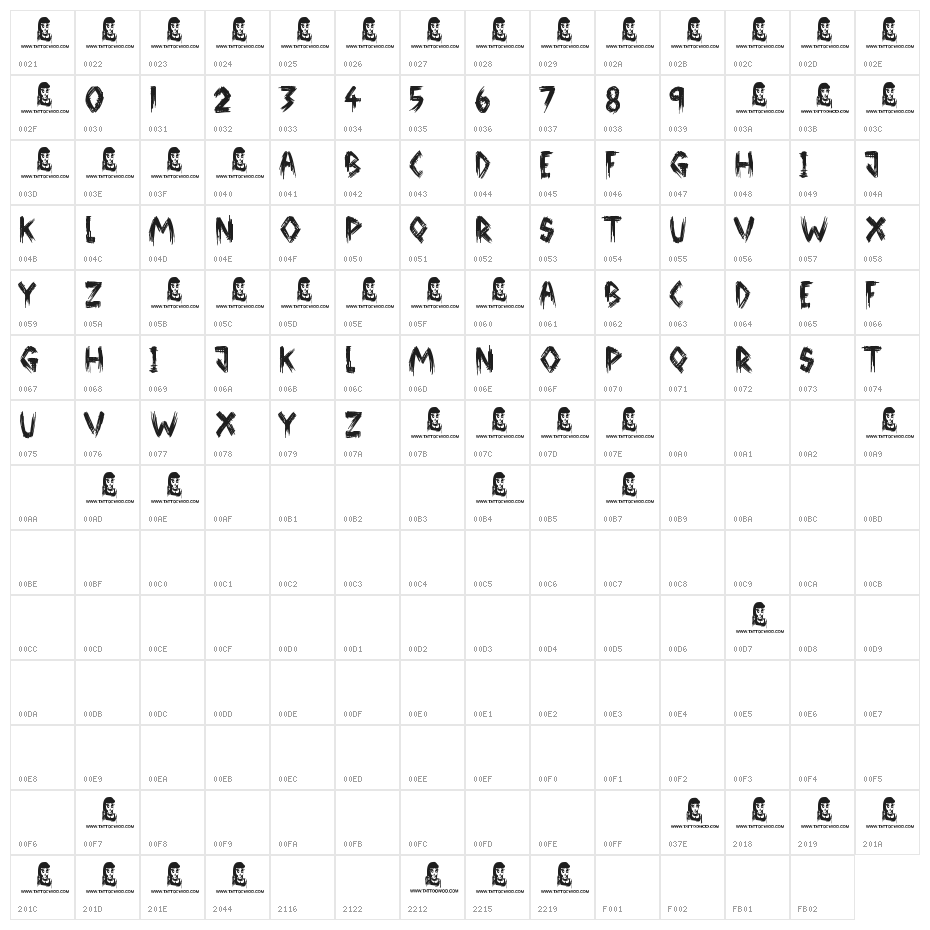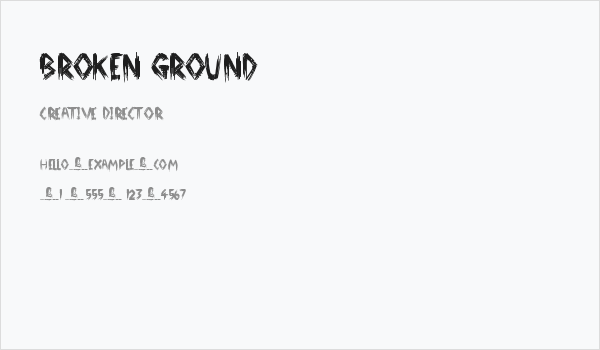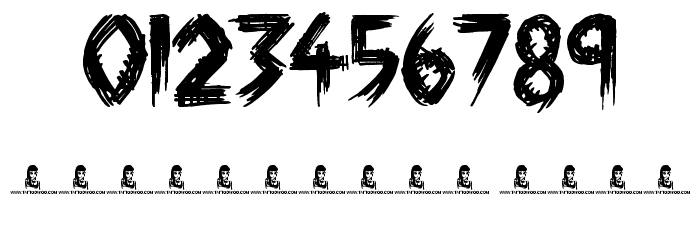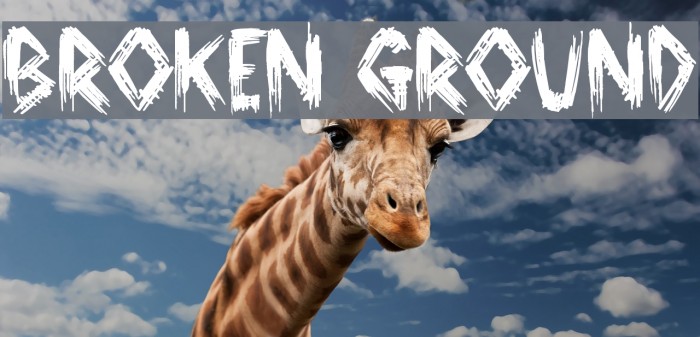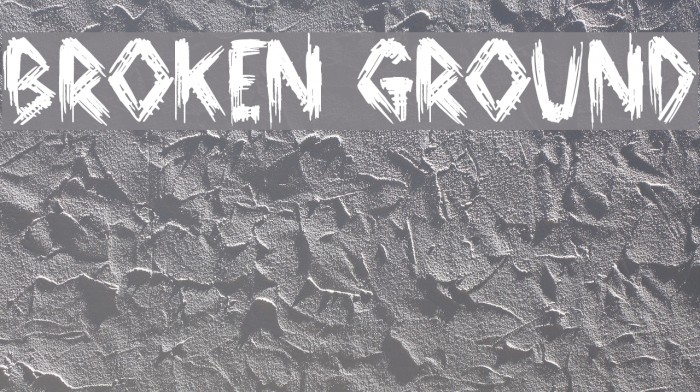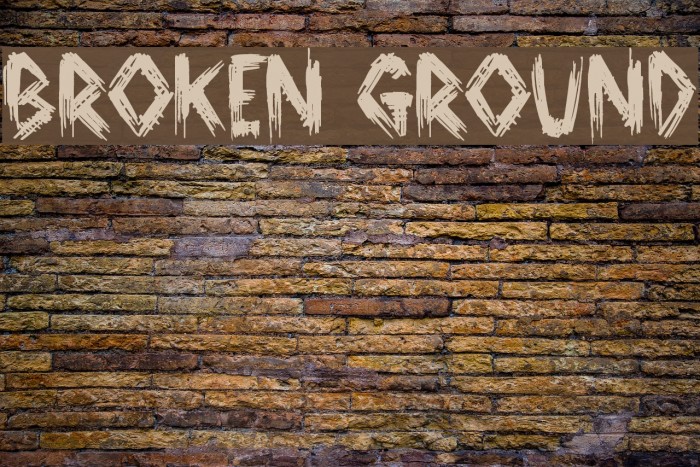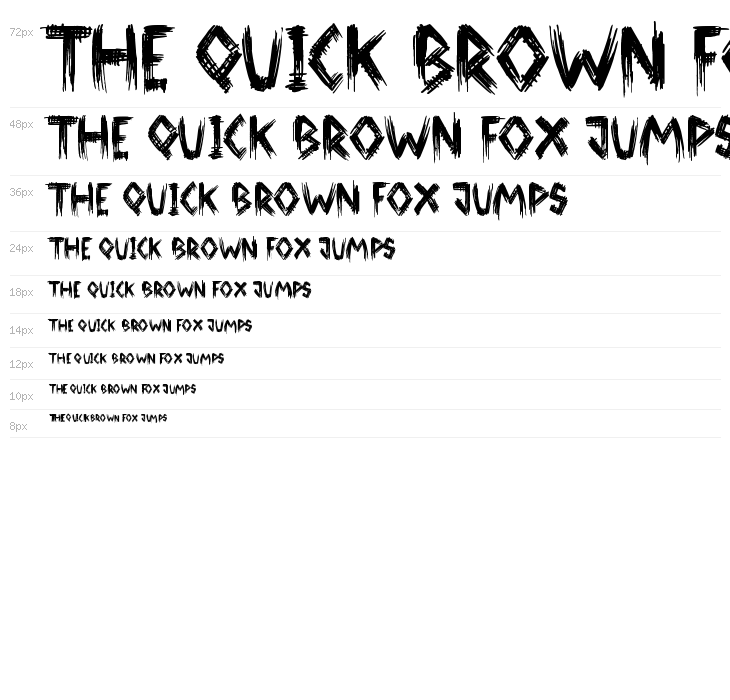
Broken Ground Font
Broken Ground Description
This font features a rugged, distressed style with jagged edges and a hand-drawn appearance. The characters are bold and dynamic, with a sense of movement and energy. The strokes are uneven, giving it a raw and edgy look, reminiscent of graffiti or urban art. The uppercase and lowercase letters maintain a consistent style, with the numbers and special characters following suit. This font is perfect for projects that require a bold statement or an artistic touch.
| Overall Style | Urban, Edgy, Artistic |
| Use Case | Headlines, Posters, Artistic Designs |
| Proposed Projects | Ideal for album covers, posters, street art designs, and edgy branding projects. |